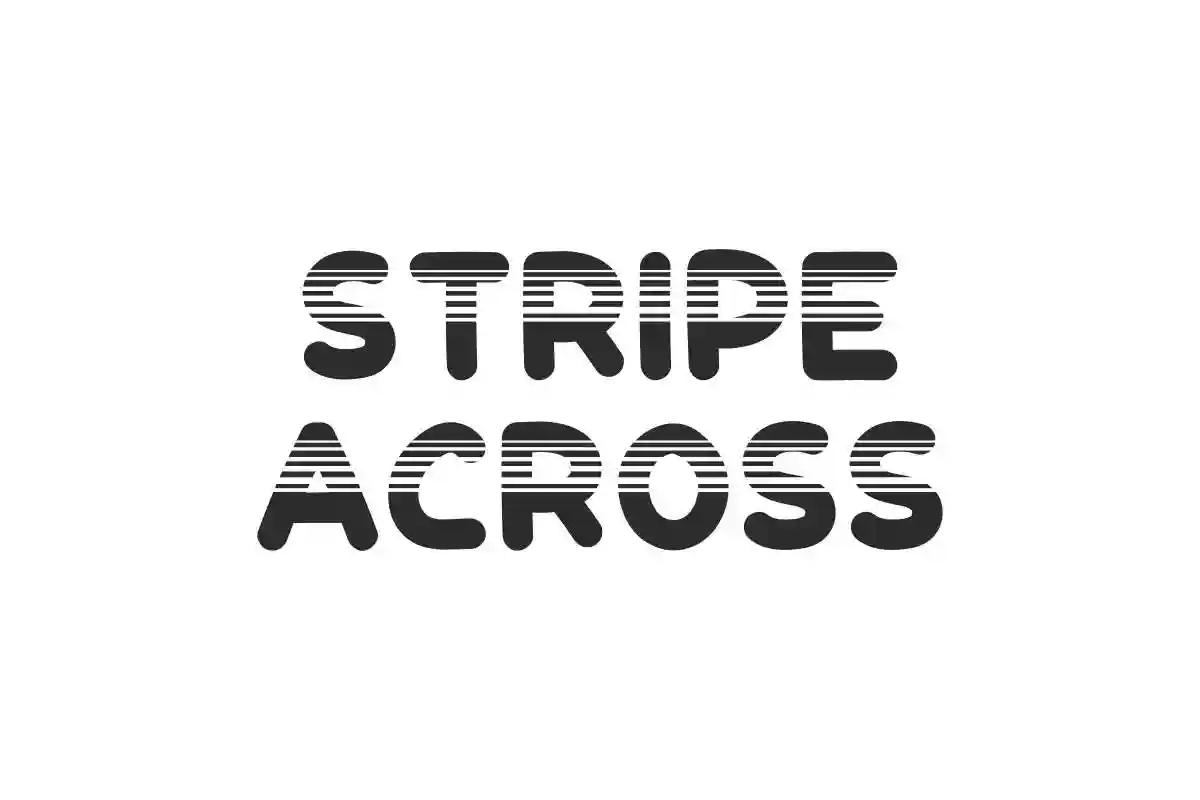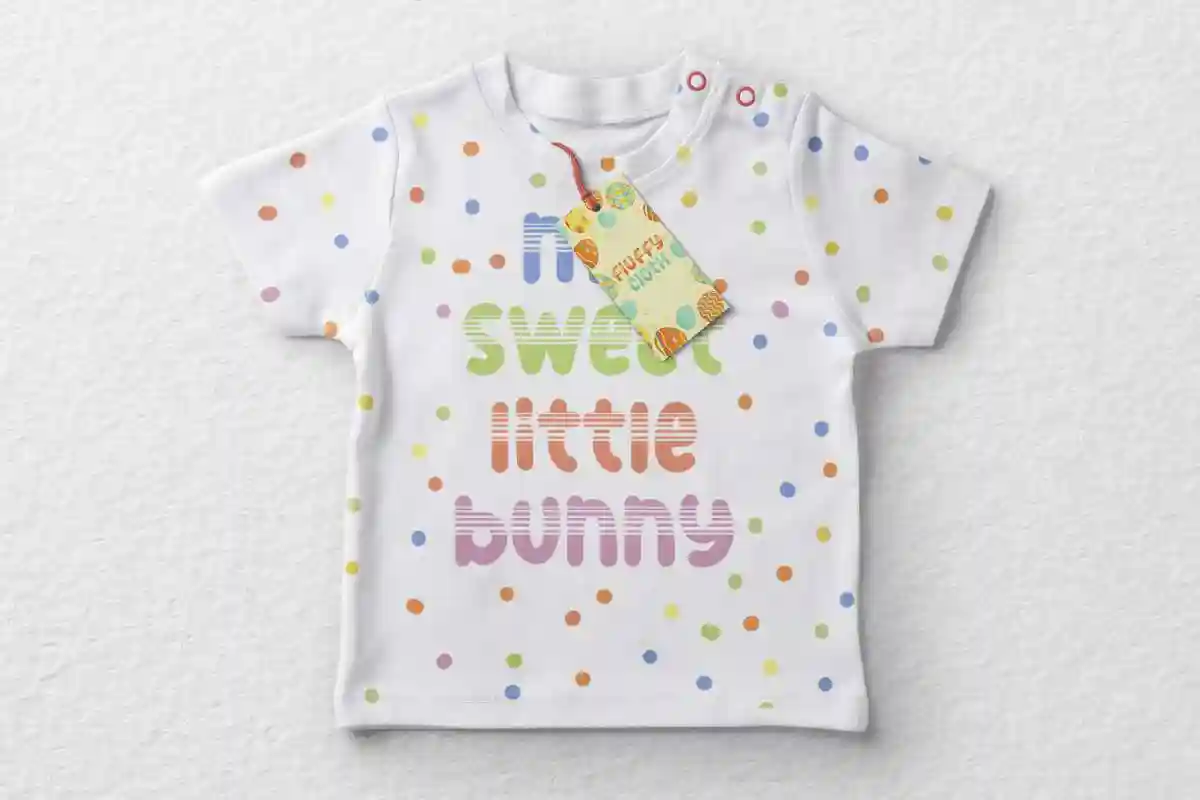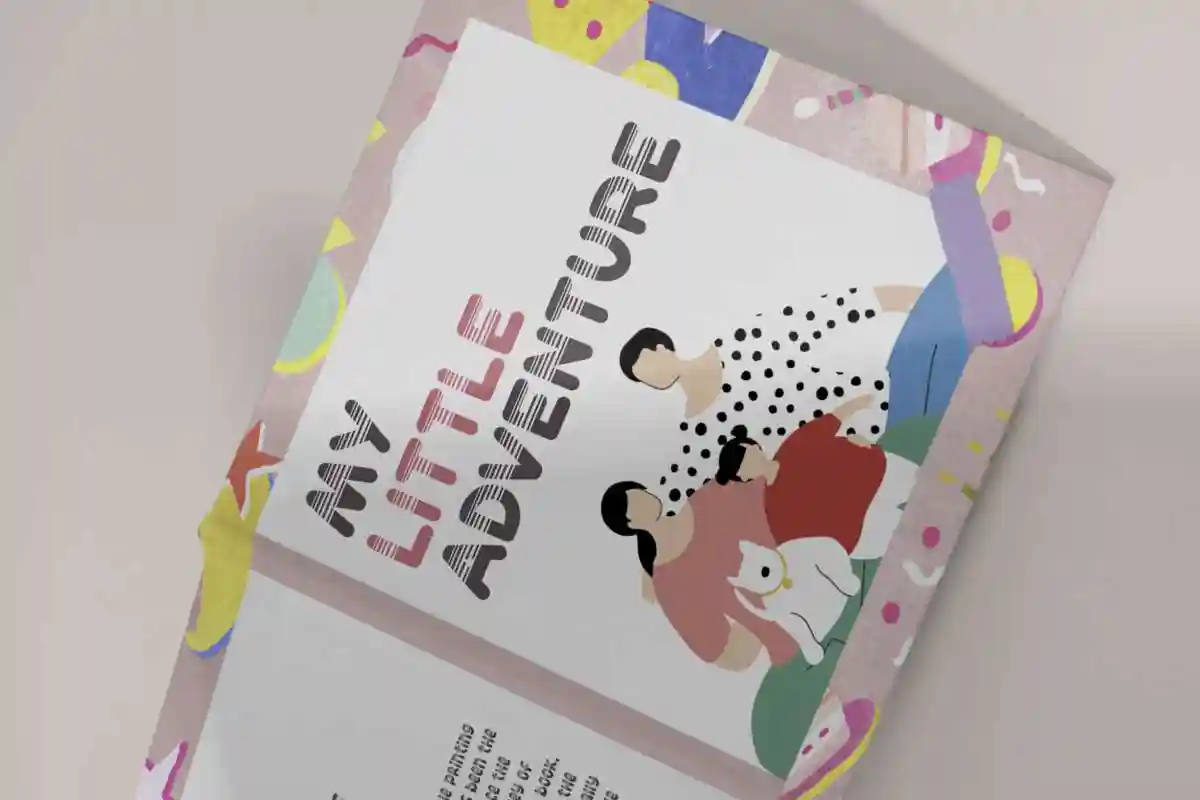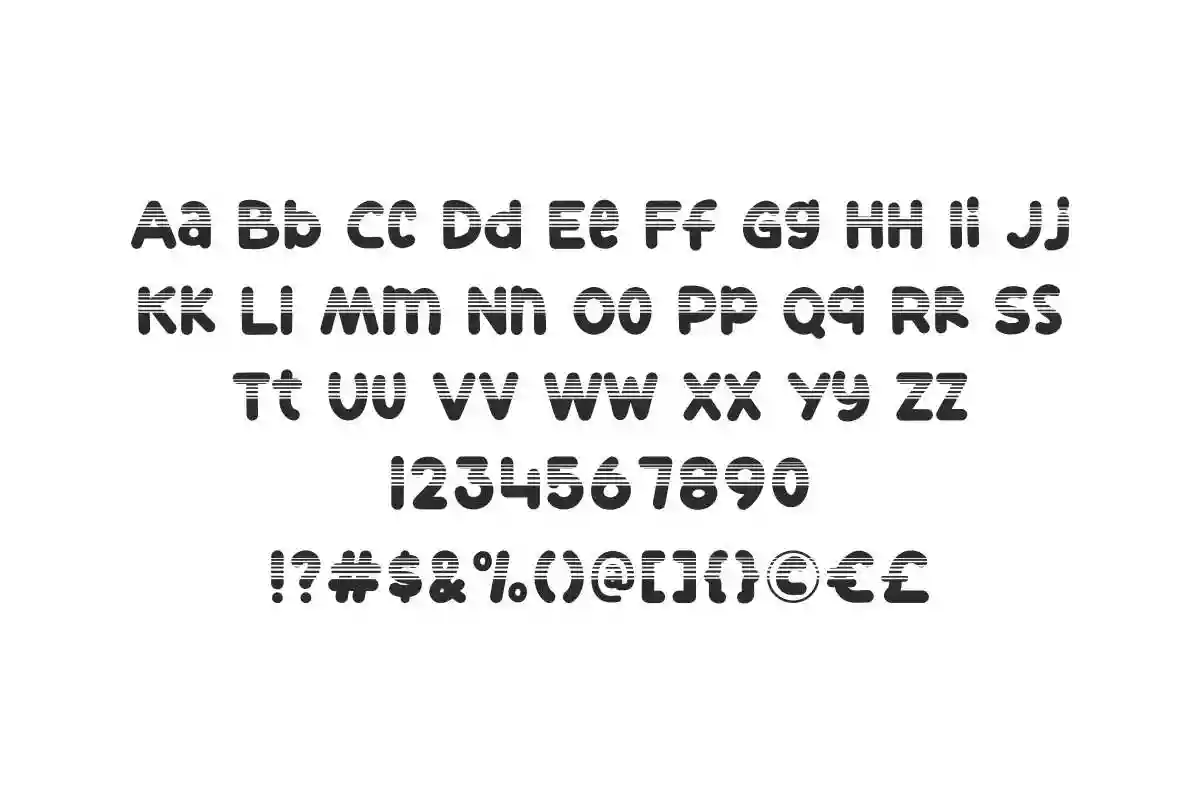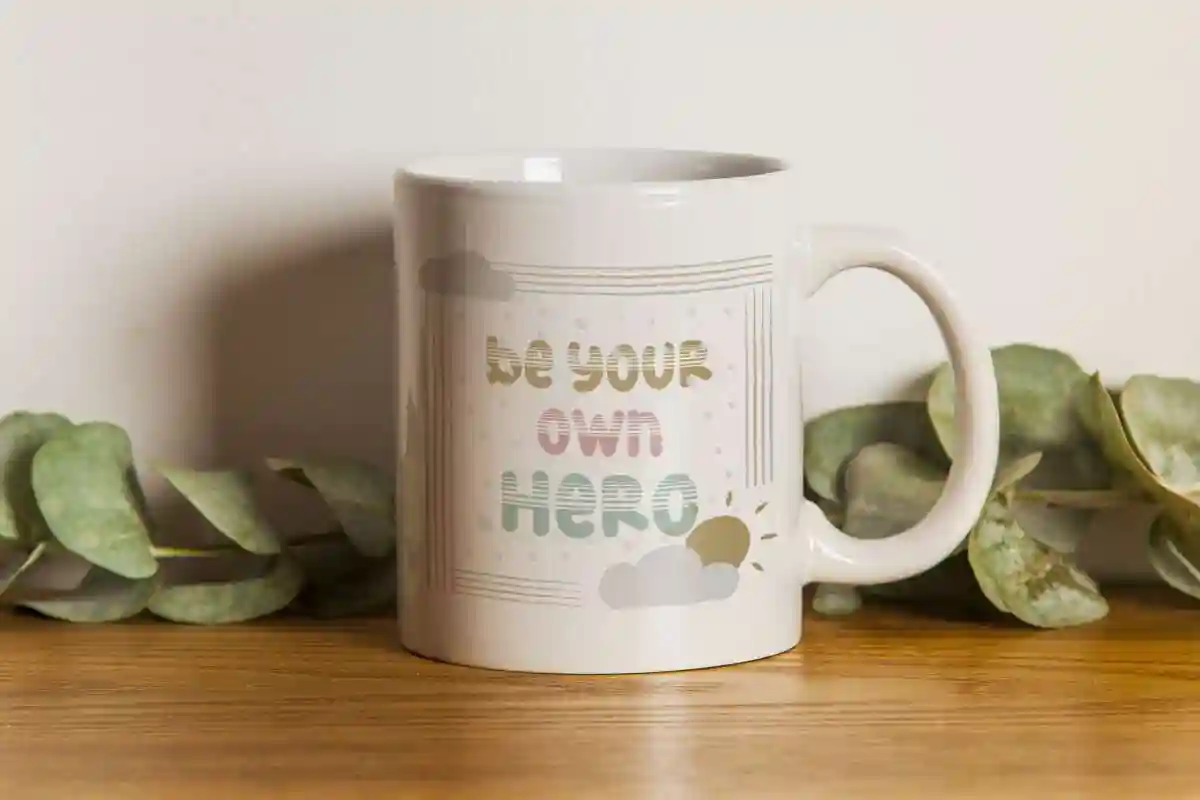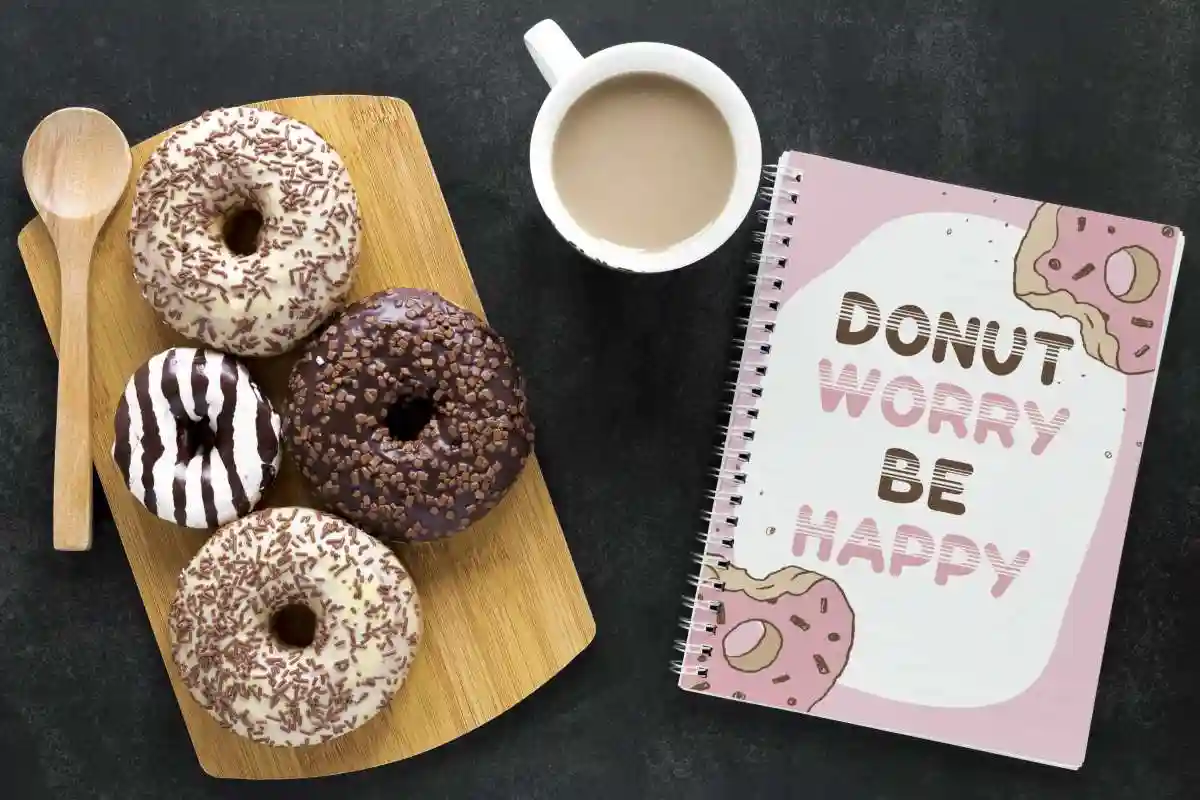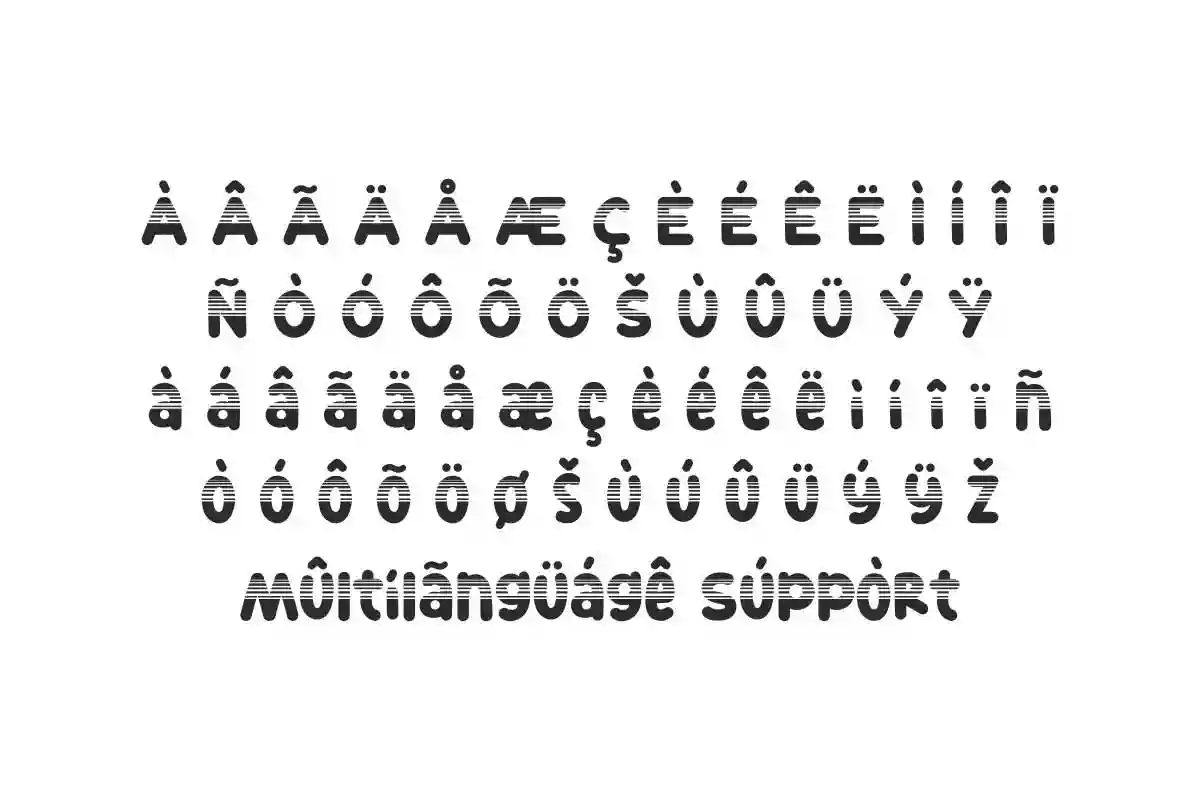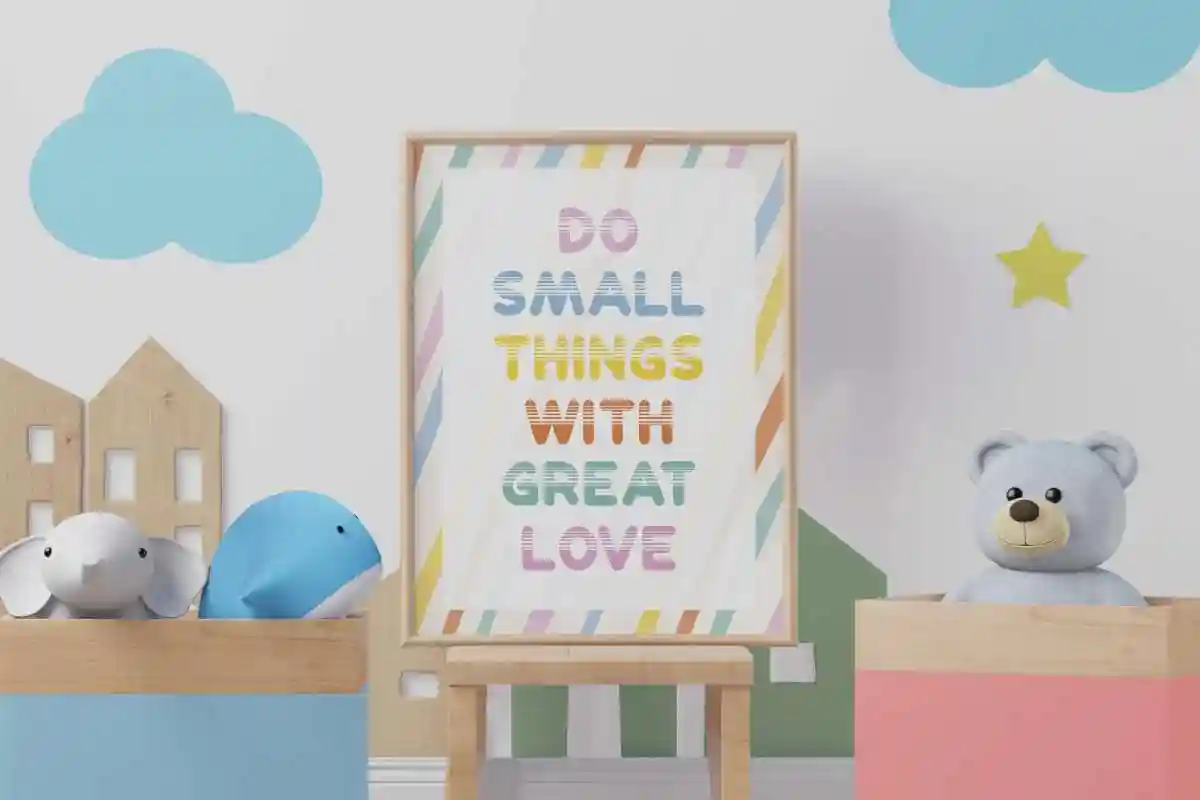
Stripe Across Font
Stripe Across Font is a fun display font with comic and cartoon theme. Great for games, food brands, movie, kids, and many other things
Stripe Across Font is a fun display font with comic and cartoon style. This font has the effect of multiple lines at the top of each letter, like a traffic lane system. Which would be perfect for any industry, such as baby stuff, bakery, café, fashion, homeware, party event, restaurant, school, snack brand, toys, writer, and more!
Stripe Across Font will be great for creative projects including billboard, brand logo, packaging design, quotes, screen printing, stationery, title, and anything that requires a different look from the cartoon font.
Stripe Across Font comes with a full set of Uppercase and Lowercase Basic Characters, Number, Punctuation, Symbol, and also supports multilingual characters. Ready to use both on Windows machine or Mac with simple installations. It’s tested to work well in the Adobe Apps (Illustrator, Adobe InDesign, Adobe Photoshop) CorelDraw, and others. PUA Encode Characters means you can access all the glyphs and other characters easily.